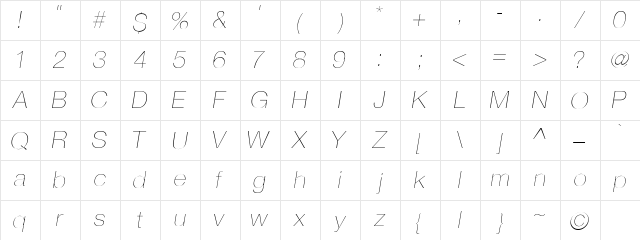
SM_vinylisM Thin
| Foundry | Dan Meyer (smashmethod) |
| Designer | Dan Meyer (smashmethod) |
Design Context for SM_vinylisM Typeface
SM_vinylisM offers clean, dependable letterforms without strong stylistic allegiance, making it a practical choice for designers who need flexibility. Its slender proportions lend an understated elegance to any composition.